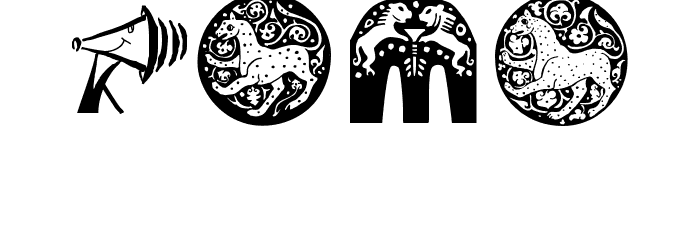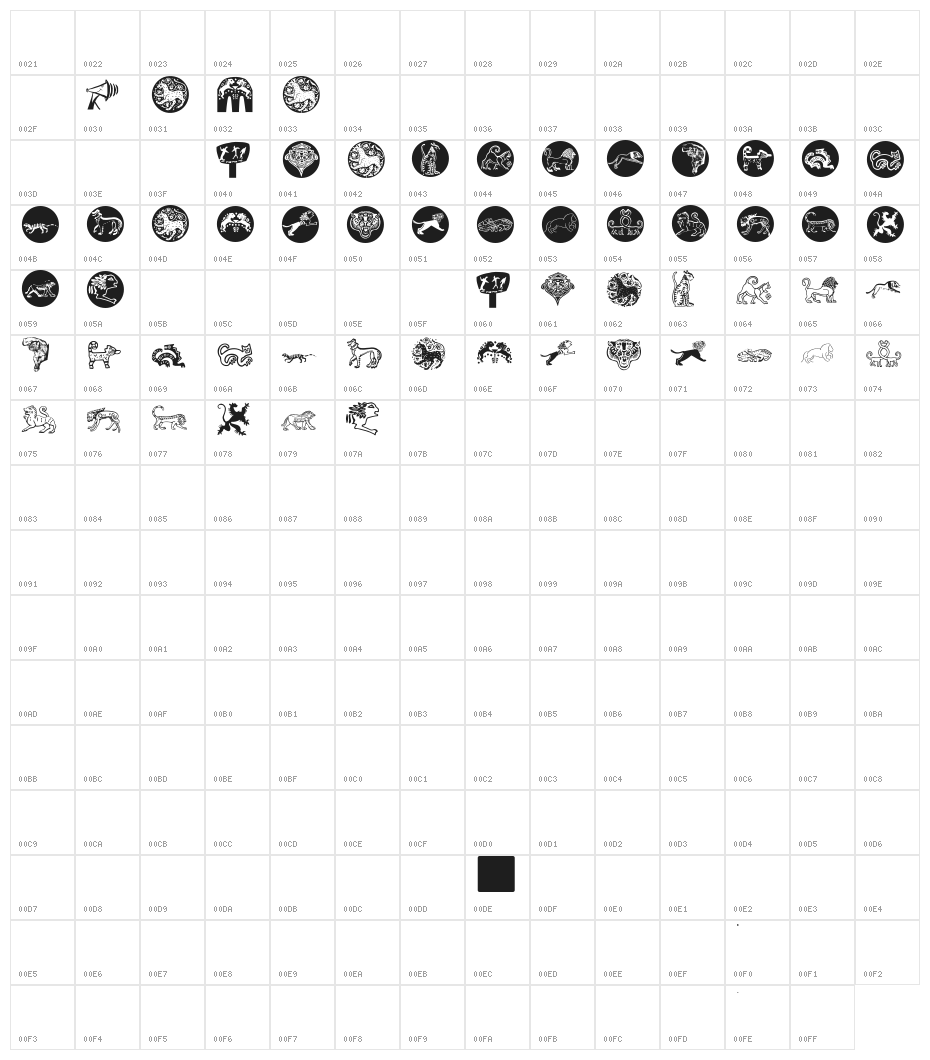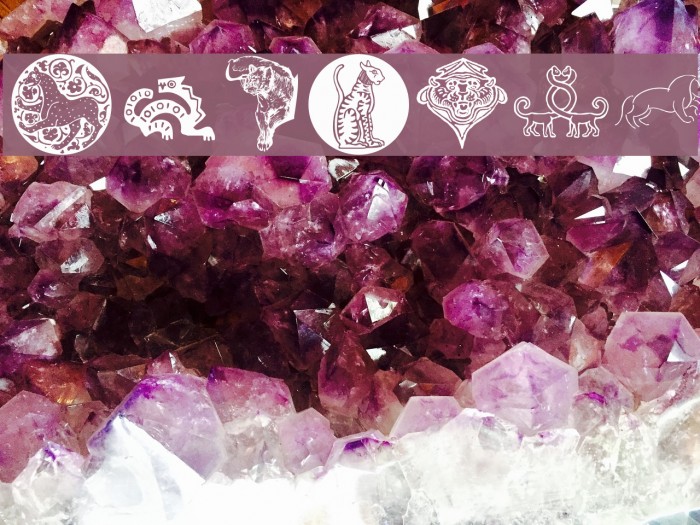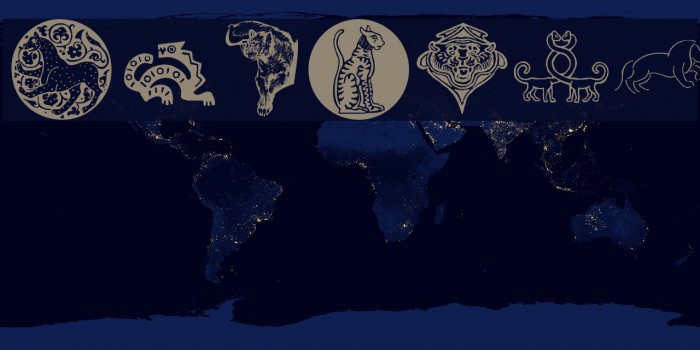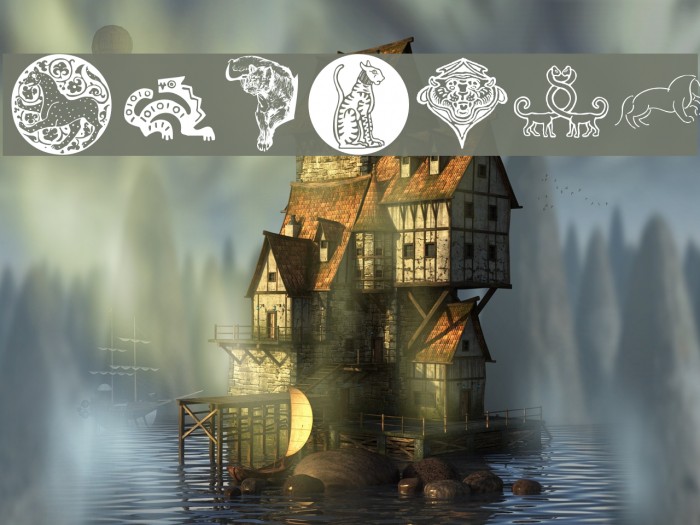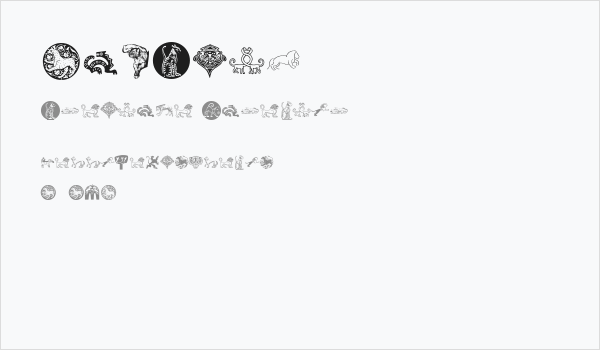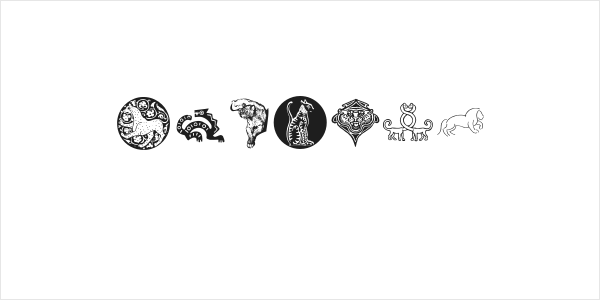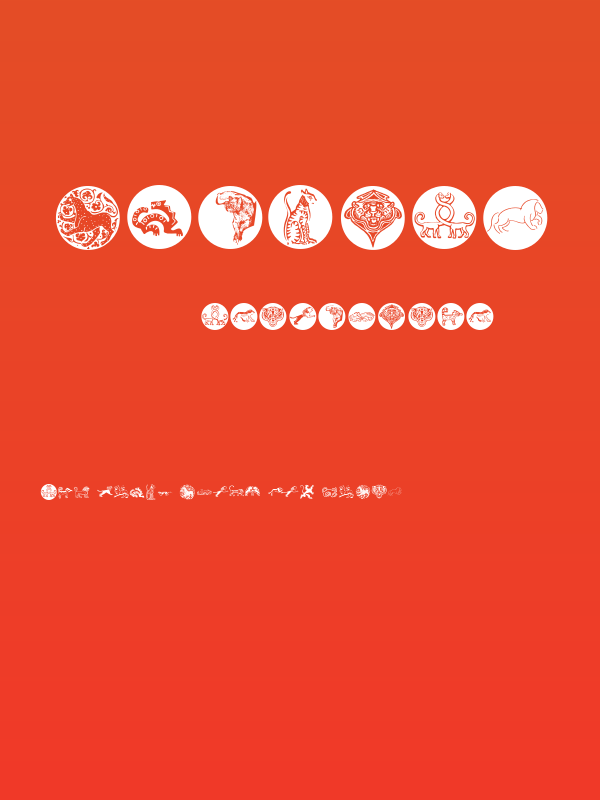
BigCats Font
This is a decorative font featuring stylized representations of big cats. Each character is uniquely designed with intricate patterns and artistic flair, capturing the essence of various feline species. The font is highly illustrative, with each letter or symbol resembling a different big cat in a playful and artistic manner. The designs are enclosed within circular or other geometric shapes, adding to the decorative appeal. The font is visually striking, making it suitable for projects that require a bold and artistic touch.
| Use Case | Logos, Posters, Artistic Branding |
| Proposed Projects | Ideal for creative projects such as children's books, animal-themed posters, wildlife conservation campaigns, and artistic branding materials. |